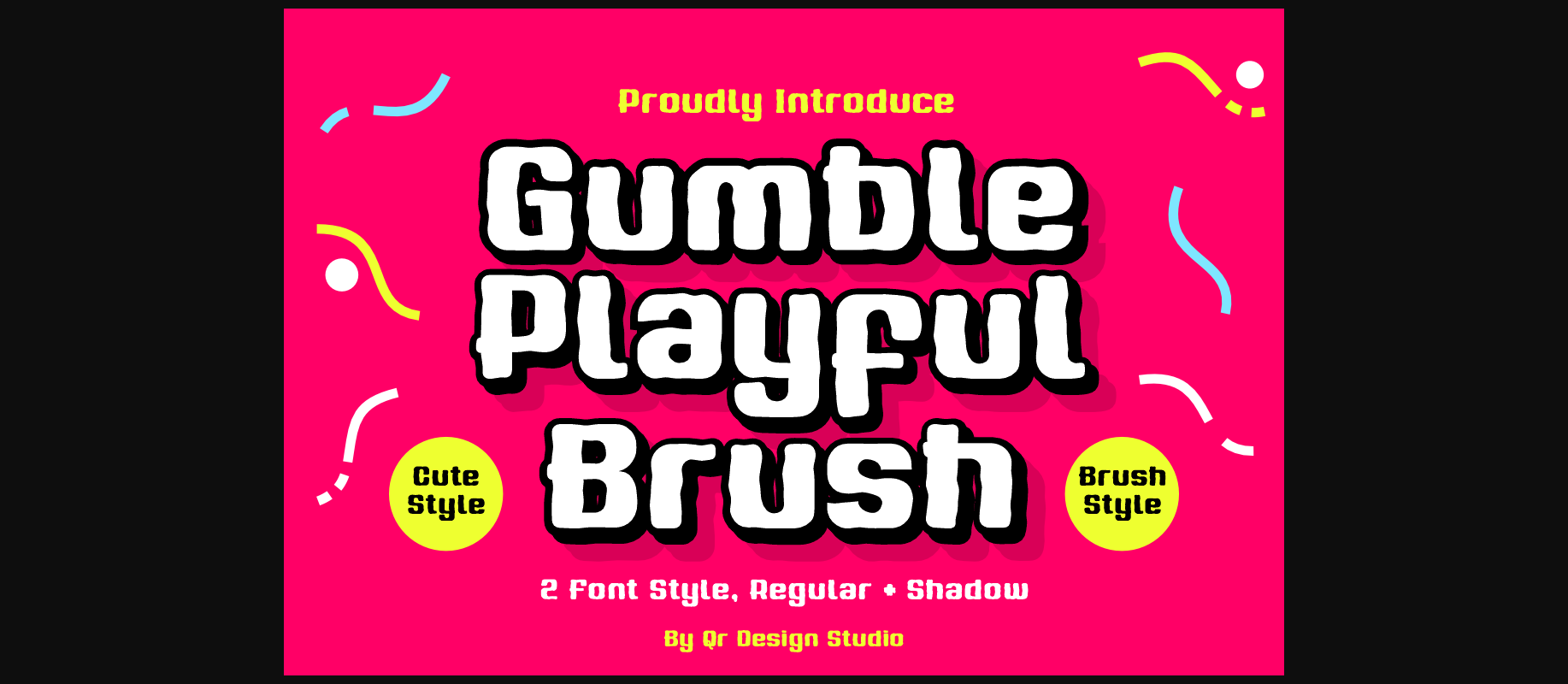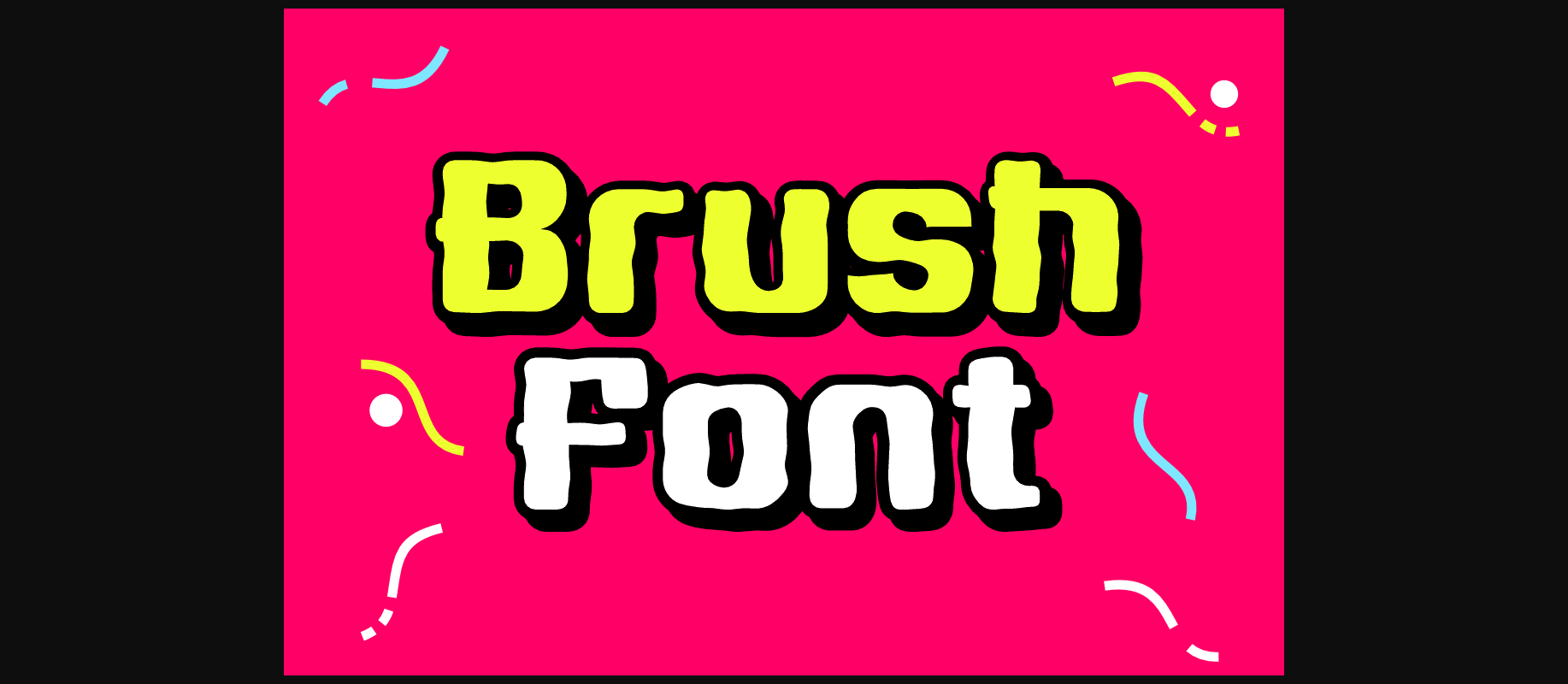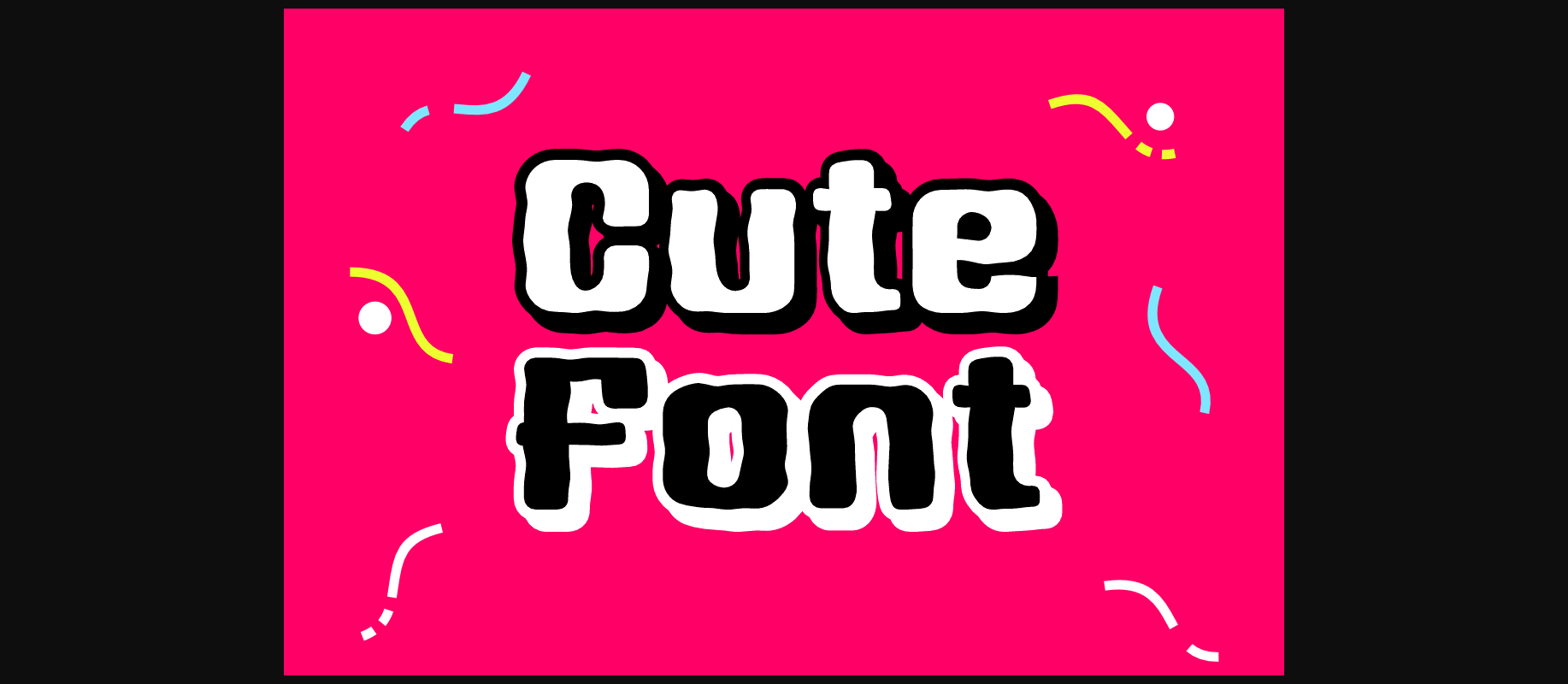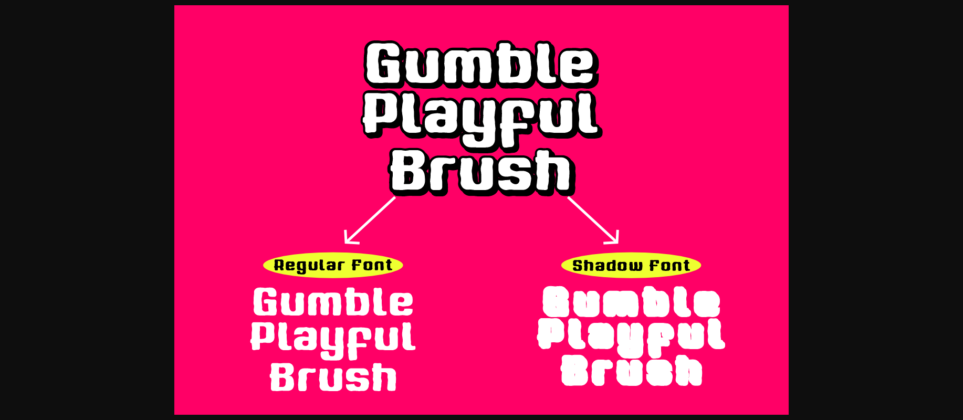
About Gumble Playful Brush Font
Gumble Playful Brush Font is a bold and authentic display font.
The font is suitable for any branding project like kids, food, logos, sports, and many more.